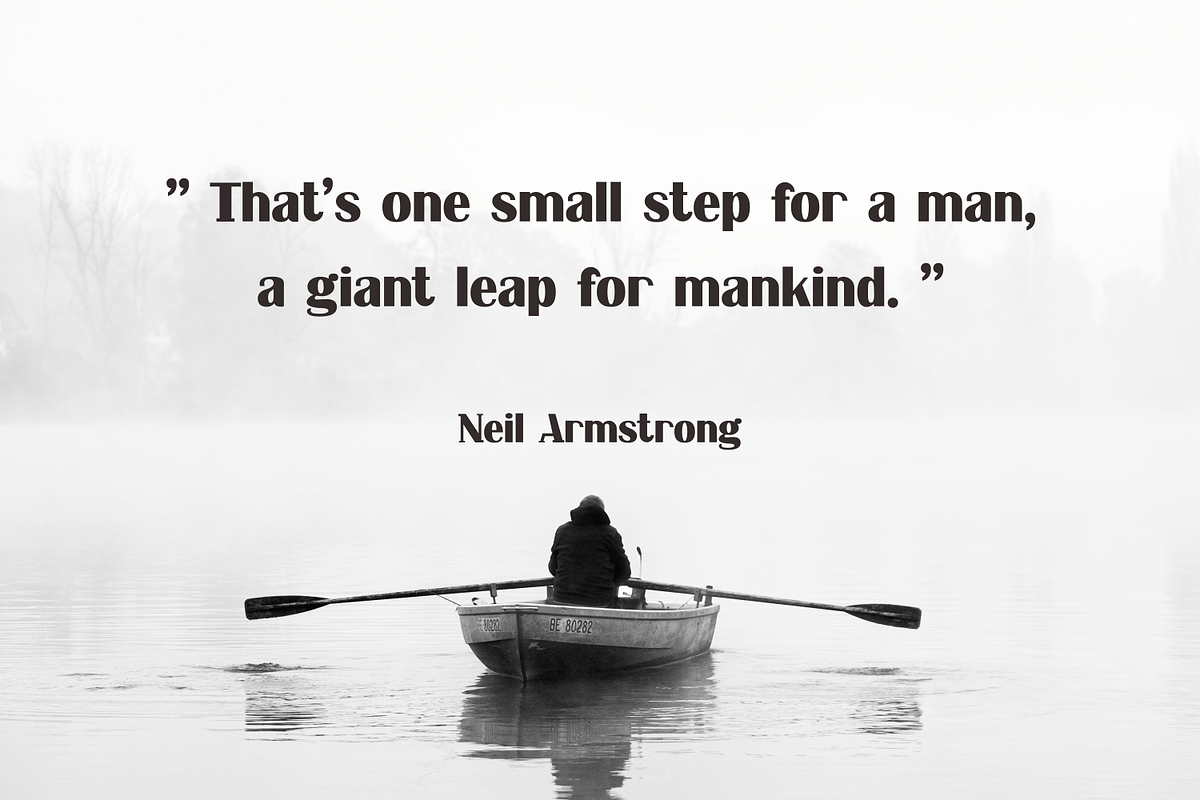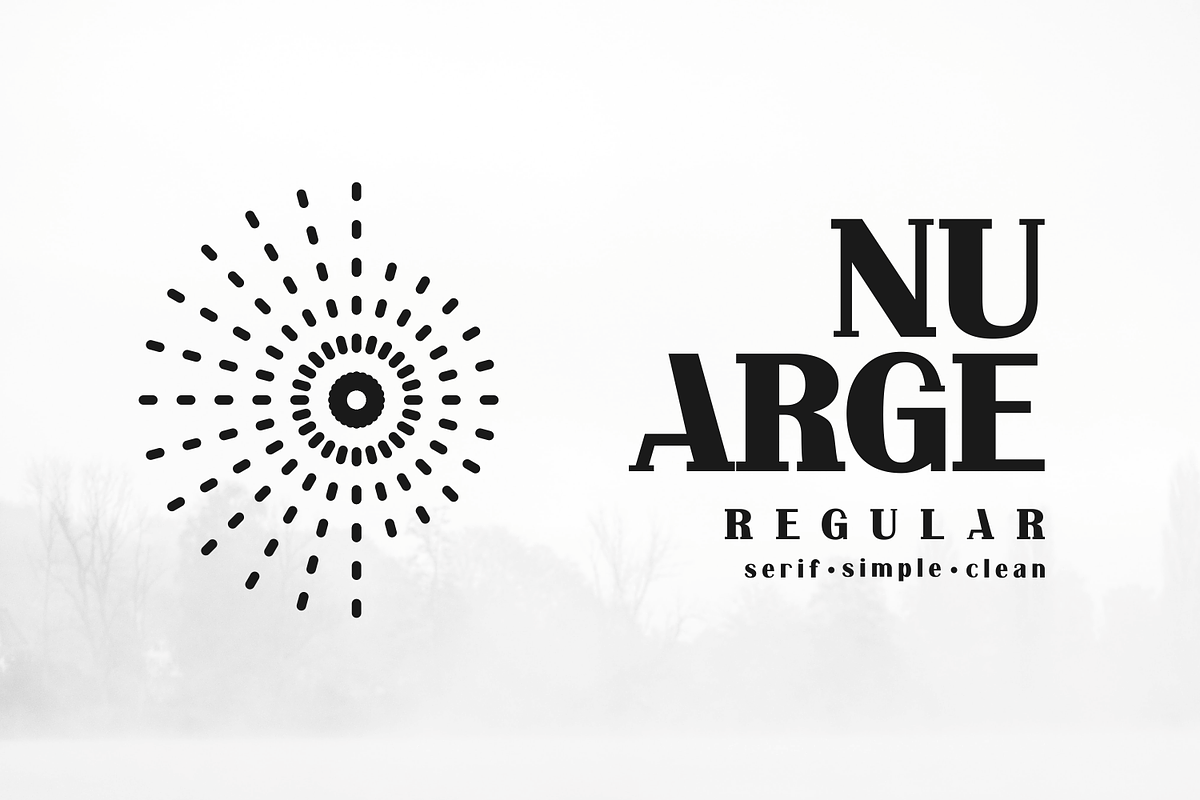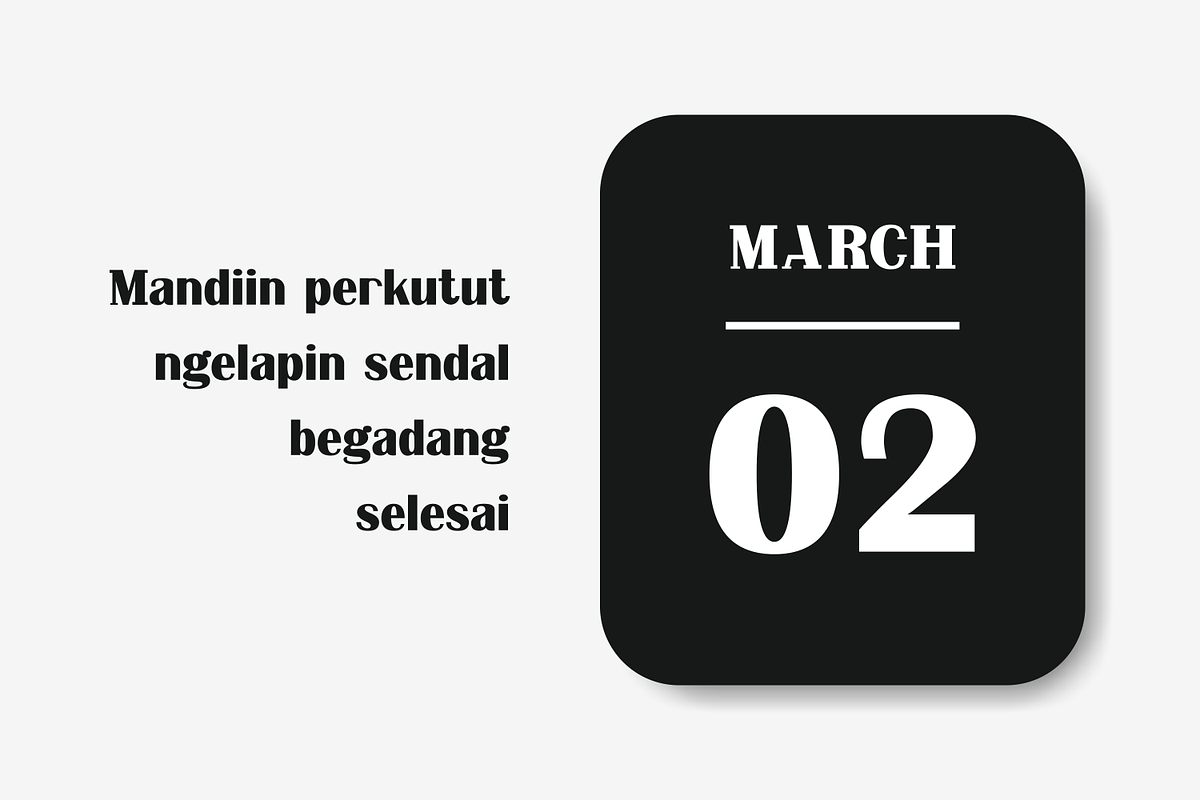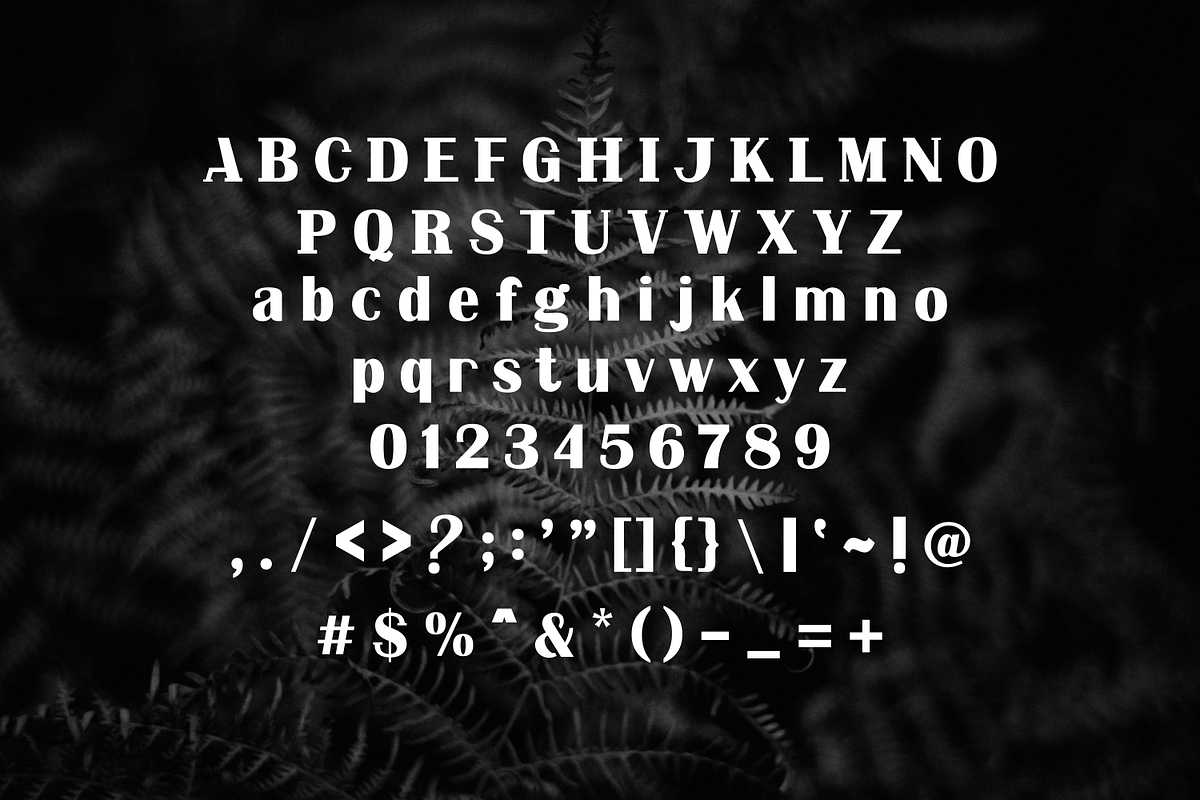
Nu Arge
Nu Arge Perfectly suited on print/screen. it’s perfect for Branding, name card, poster, logo, magazine, cover, banner, t-shirt and headers, or even large-scale artwork.